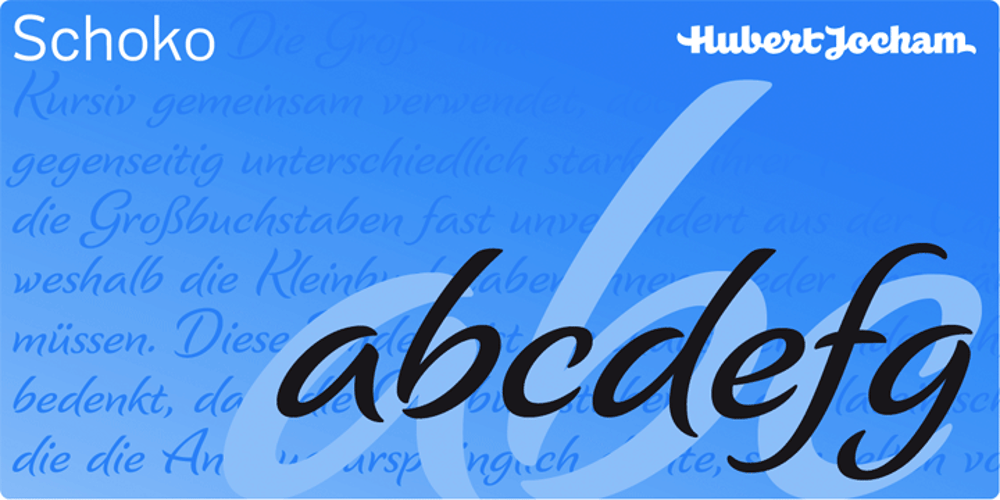
Schoko Font Family was designed by Hubert Jocham and published by Hubert Jocham Type. Schoko contains 2 styles and family package options. Schoko is a brush script headline typeface. It is elegant and still clear and self-confident. Ideal for food packaging and product branding.